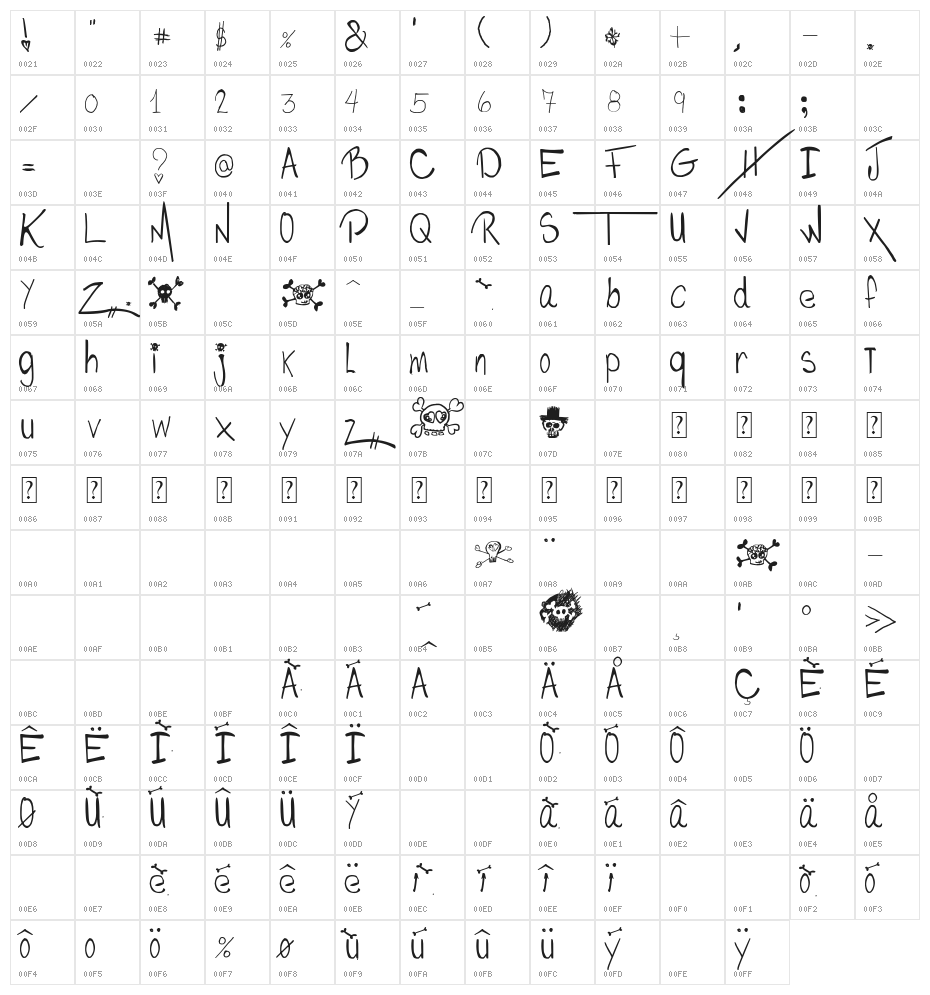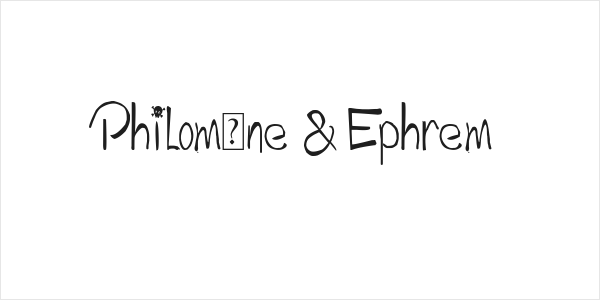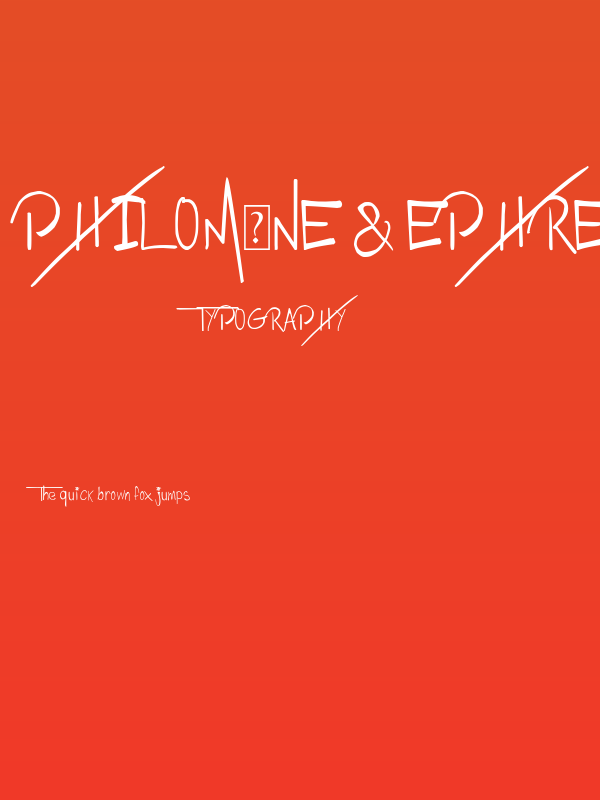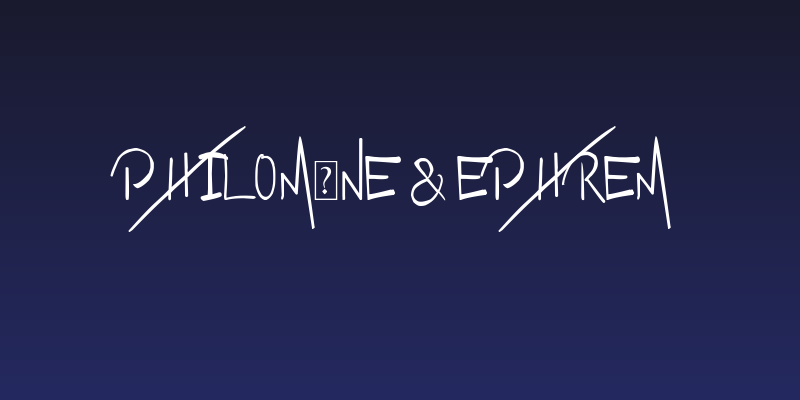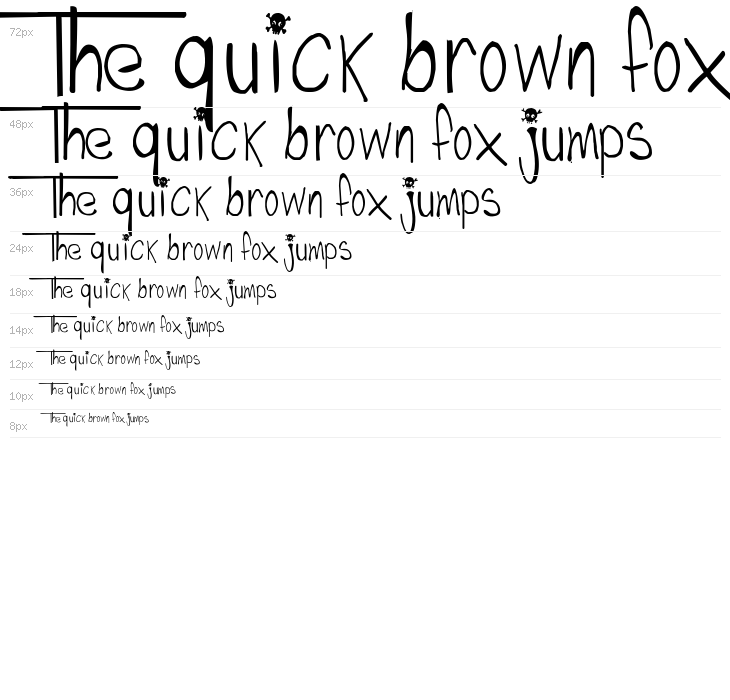
Philomne & Ephrem Font
Philomne & Ephrem Description
This font exhibits a playful and whimsical style, characterized by its irregular, hand-drawn appearance. The letters are unevenly weighted, with varying stroke thicknesses that give it a dynamic and energetic feel. The uppercase and lowercase letters are distinct, with some characters featuring unique embellishments, such as small decorative elements. The numerals and special characters maintain the same quirky aesthetic, adding to the font's overall charm. This font is ideal for projects that require a fun and informal touch, making it suitable for creative designs and artistic expressions.
| Proposed Projects | Ideal for children's books, creative posters, playful branding, and artistic projects. |